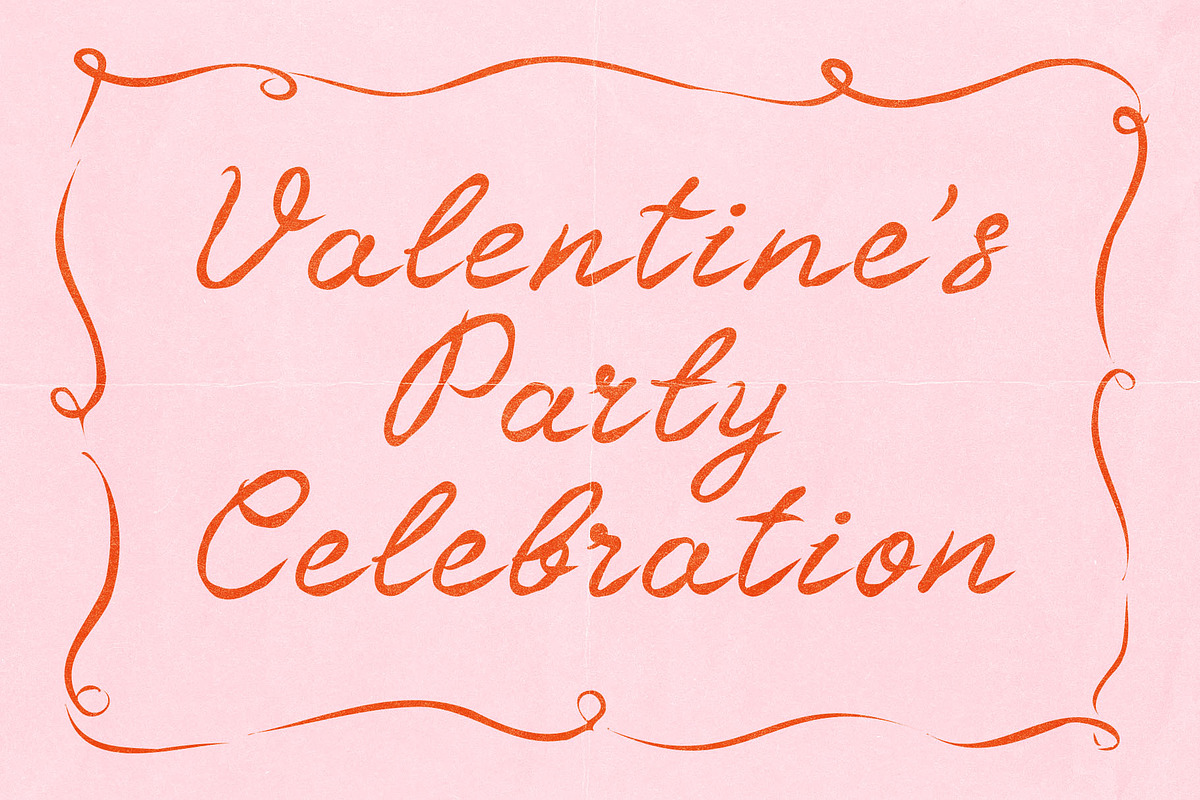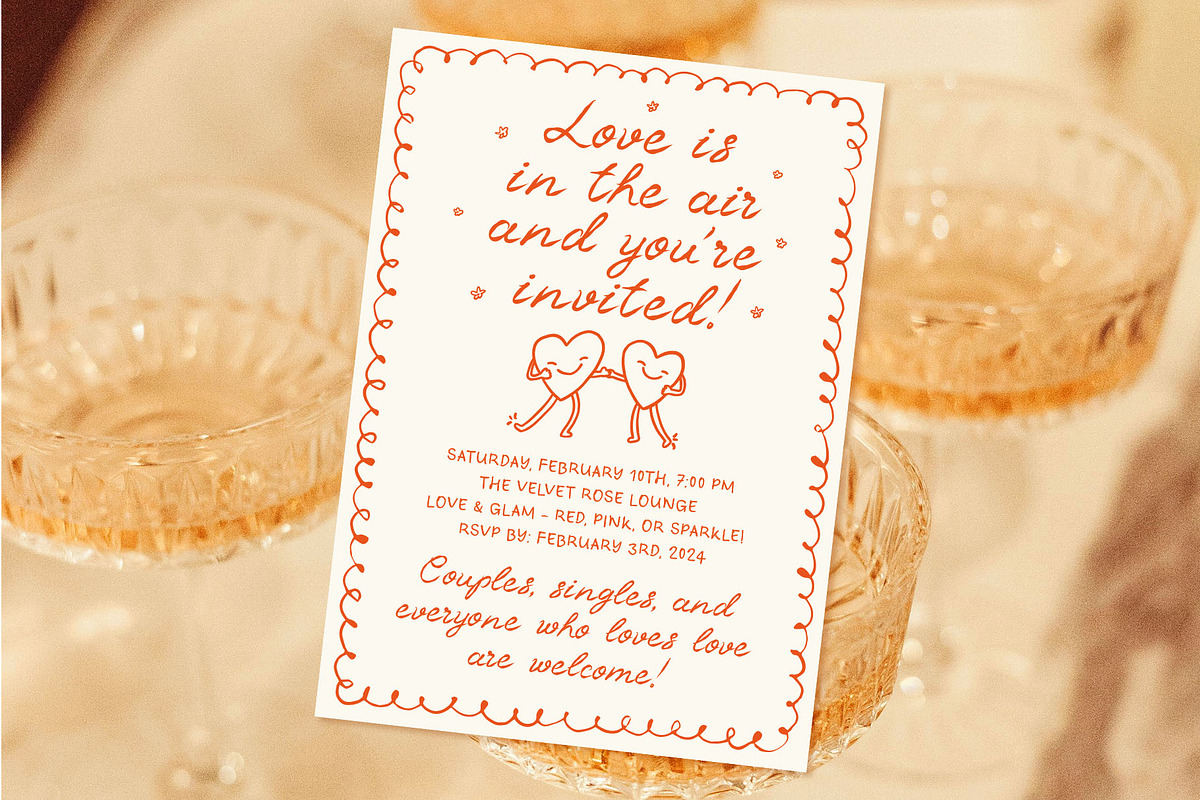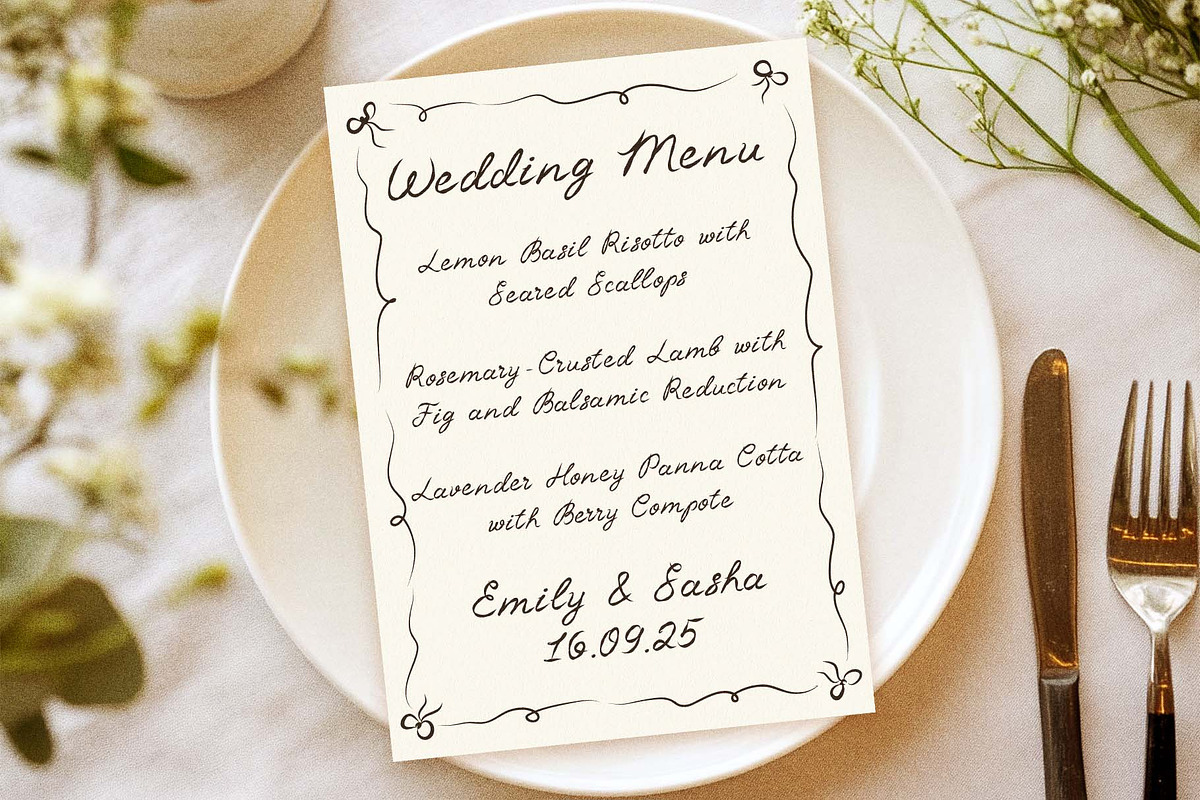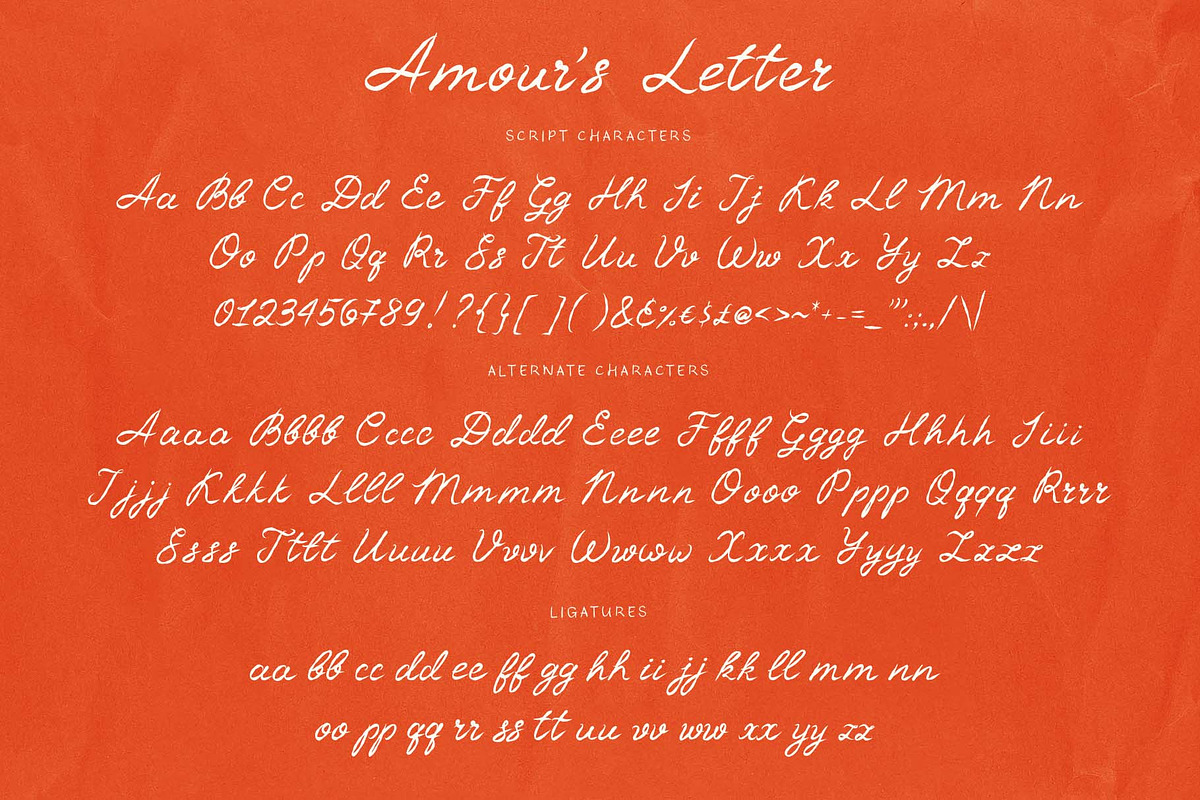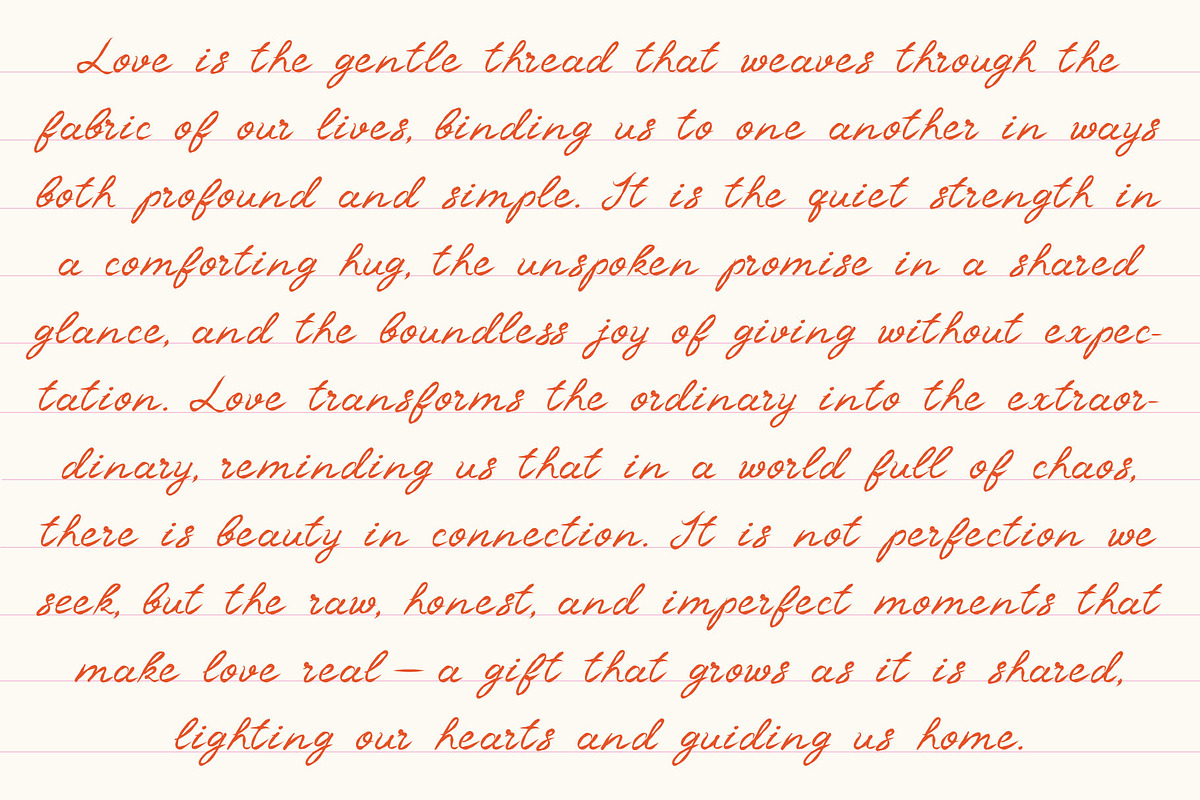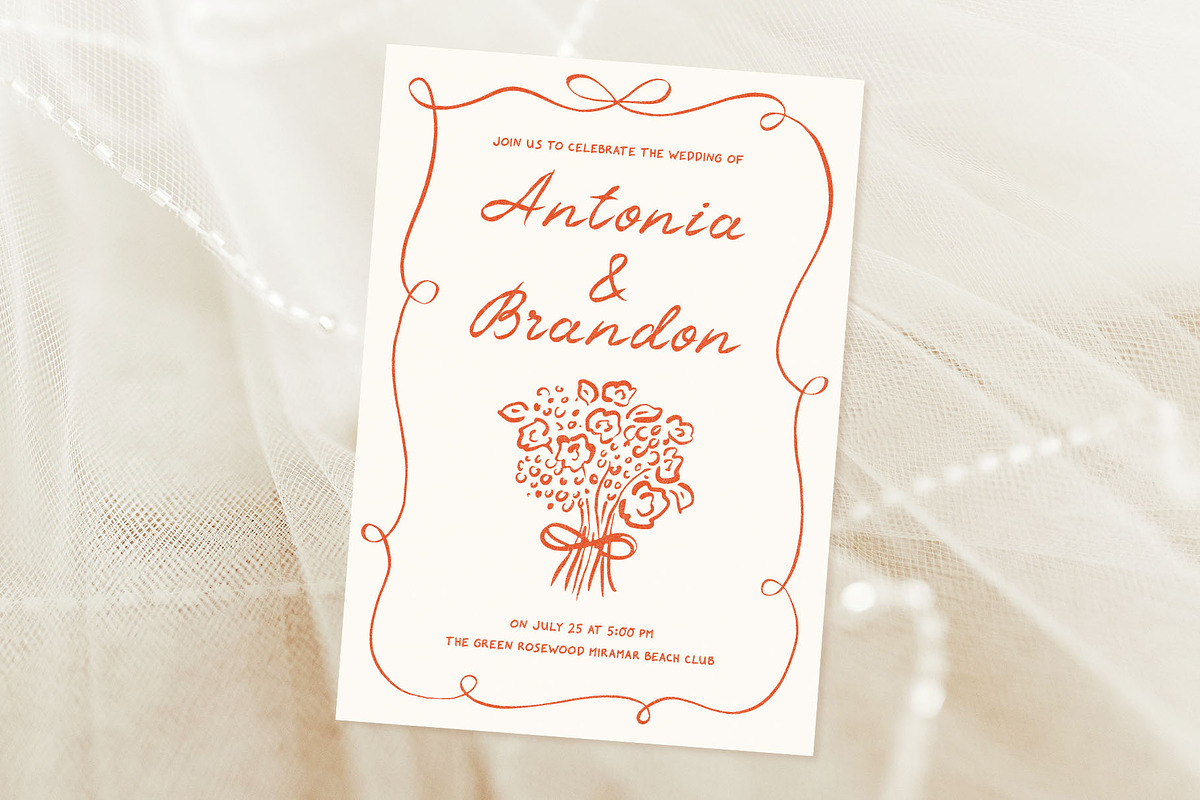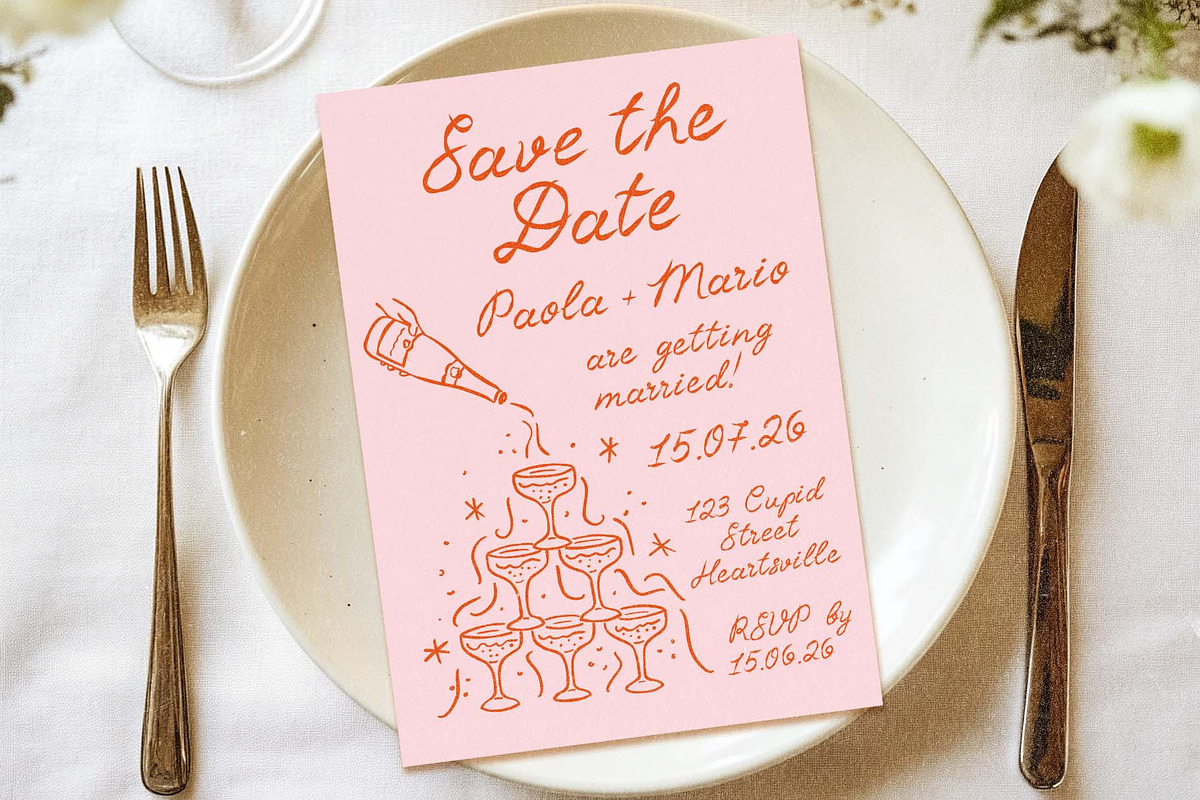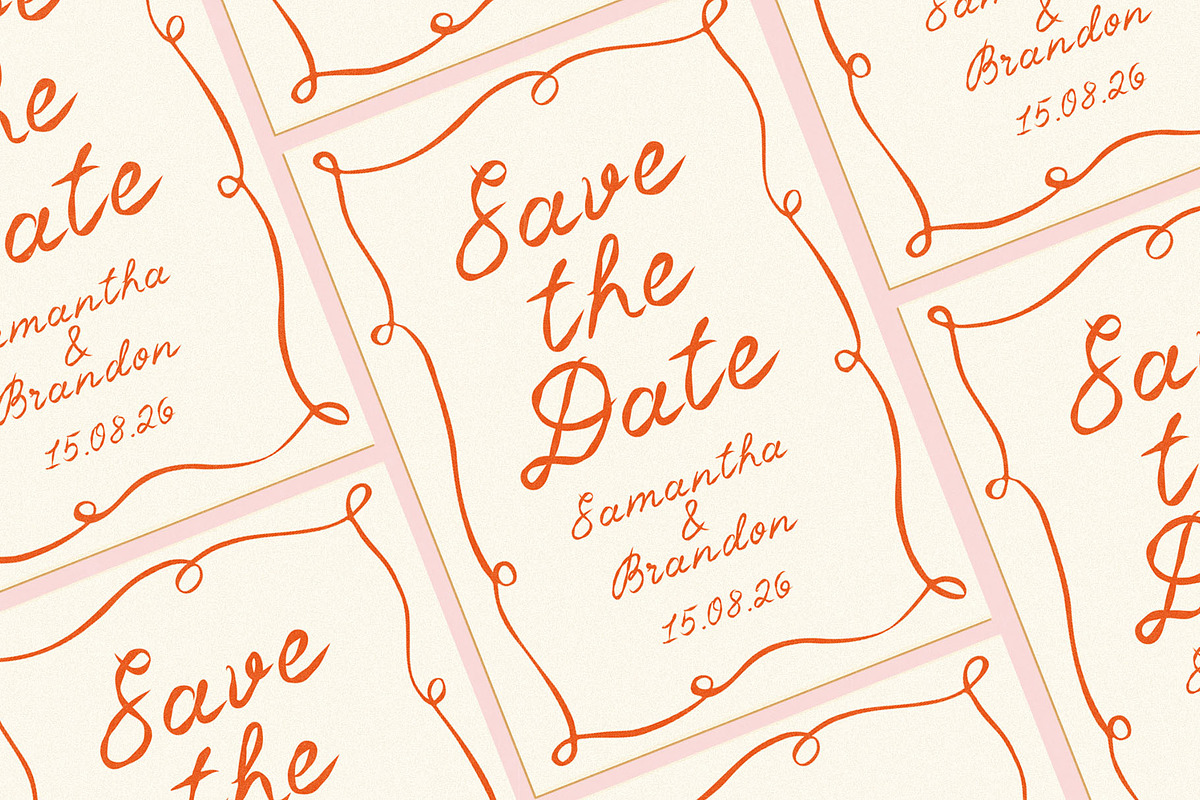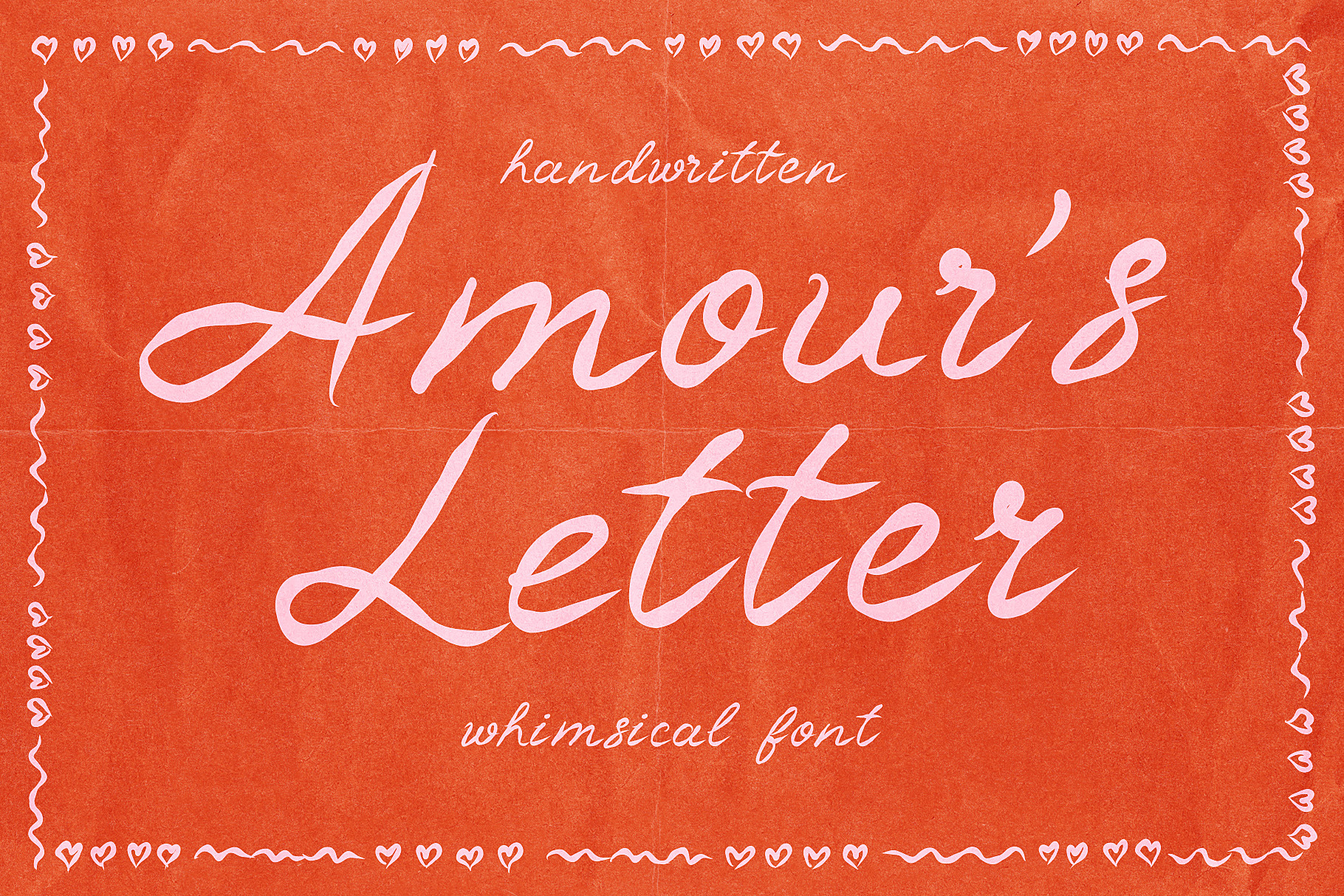
Romantic Handwritten Script Font
Amour's Letter is a romantic script font with an elegant yet playful flow, perfect for love letters, wedding invitations, or any design that needs a touch of charm and whimsy. Let its delicate strokes add a little magic to your words.
Amour's Letter Font